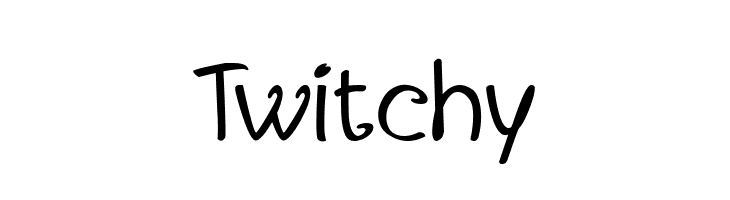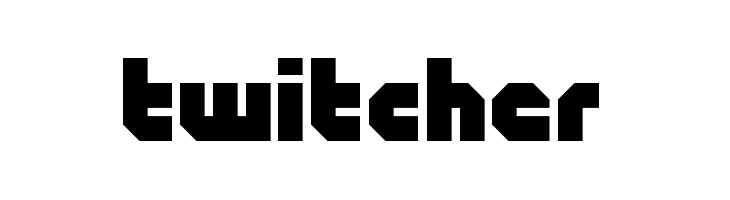
( Fonts by Nirmala Creative )
A playful, hand-drawn font with a whimsical and friendly style.
( Fonts by Nirmala Creative )
A playful, hand-drawn font with a whimsical and lively style.
( Fonts by Aman Karna )
A playful, twisting font with a hand-drawn, artistic style.
A bold, playful handwritten font with thick strokes and dynamic letterforms.
A bold, playful handwritten font with thick strokes and lively letterforms.
( Fonts by GGBotNet )
A bold, dynamic font with angular shapes and a modern, edgy style.
A playful, twisty, hand-drawn font with bold, dynamic strokes.
( Fonts by Xerographer Fonts )
A pixelated, digital-style font with a retro, textured appearance.